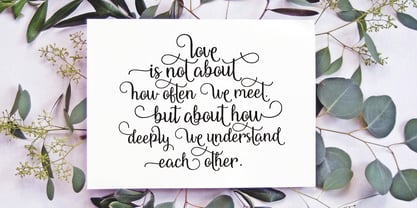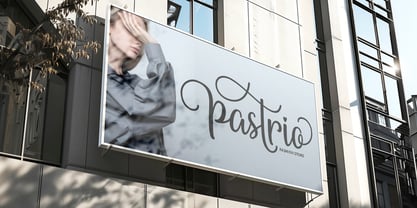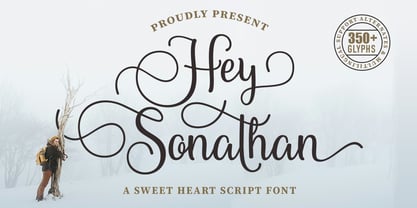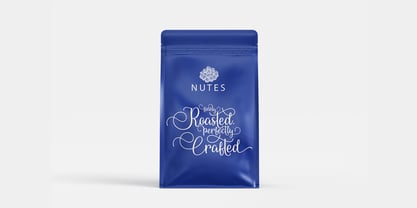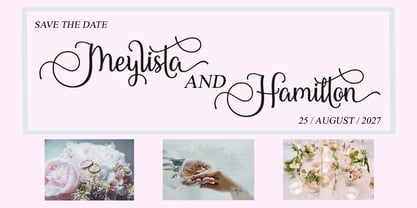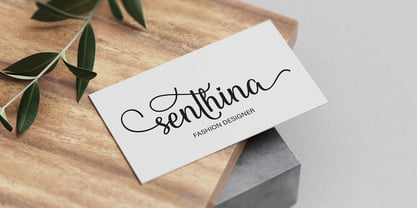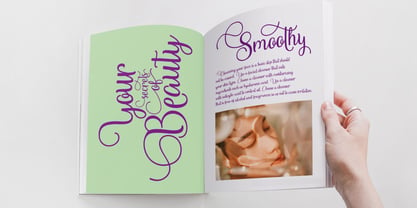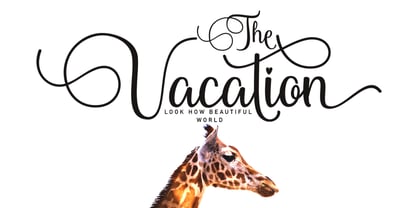
Hey Sonathan
The Hey Sonathan Font Family was designed by Rizki Agam Fonna and published by RCKY Studio. Hey Sonathan contains 1 styles. More about this family
Introducing Hey Sonathan, a polished script font adorning an elegant and artistic handwriting style. Its defining feature lies in its contemporary calligraphy style where each letter is rendered with smooth, effervescent curves. This lends it an aura of elegance and romance, sparking an emotional appeal. An impressive palette of over 350 additional characters yields a cornucopia of unique designs and choices. With its distinctly feminine and refined undertones, Hey Sonathan is an ideal choice for designing wedding themes, creating ornate invitations, or establishing logo and branding elements that demand a soft and luxurious touch. With language support that spans various languages, it displays sheer versatility. If you’re seeking the perfect match for design projects that require a dash of classic, romantic, and aesthetic flair, Hey Sonathan is the font for you.